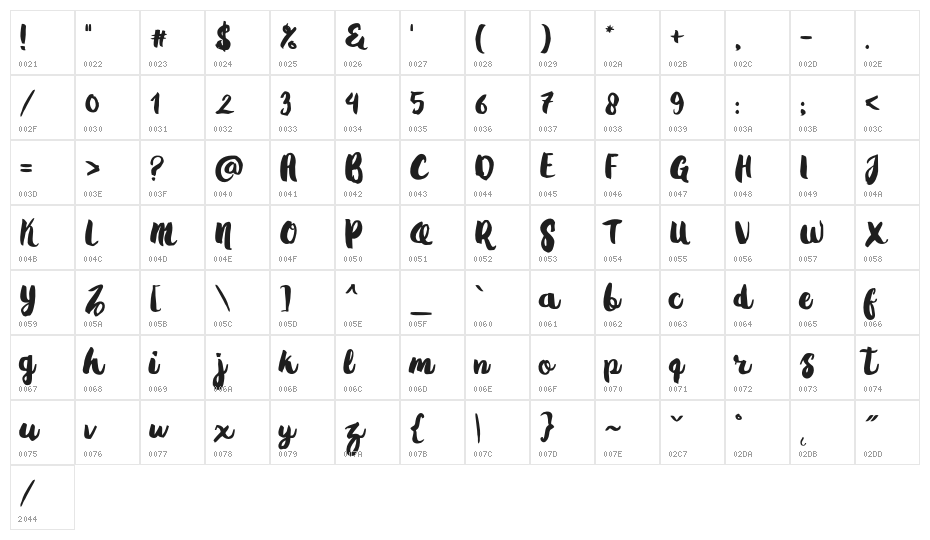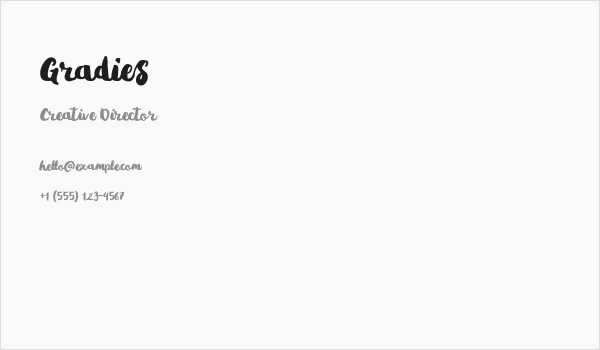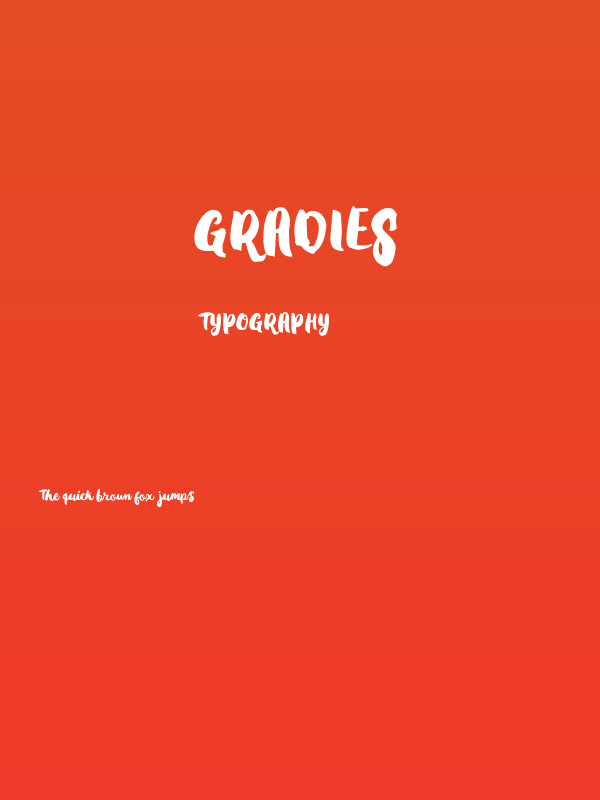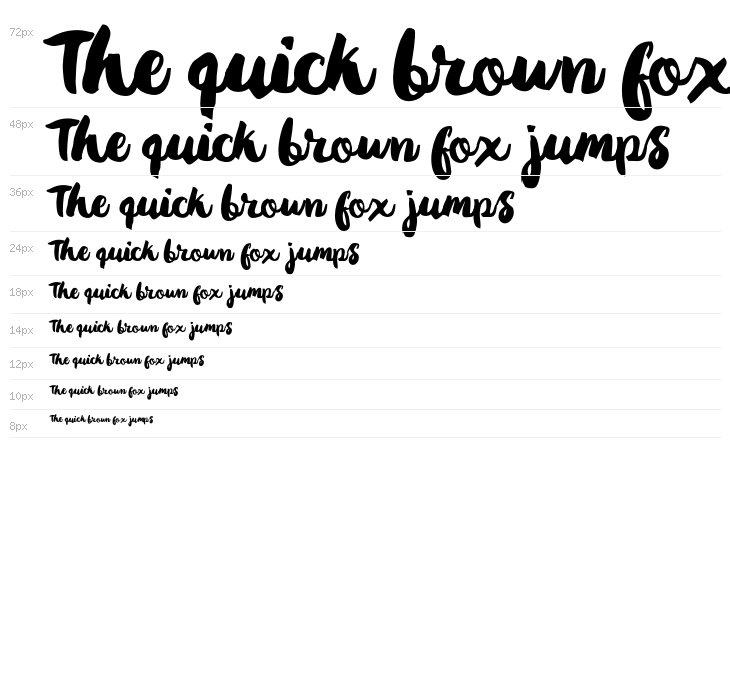
Gradies Font
Gradies Description
This font features a bold and expressive handwritten style, characterized by its thick strokes and fluid, cursive-like forms. The uppercase and lowercase letters exhibit a playful and dynamic appearance, with varying stroke widths that add a sense of movement and energy. The numbers and special characters maintain this lively aesthetic, making the font suitable for creative and informal designs. Its bold presence and artistic flair make it stand out, while the slightly irregular shapes give it a personal and handcrafted feel.
Proposed ProjectsIdeal for greeting cards, posters, branding projects, and social media graphics that require a personal and artistic touch.